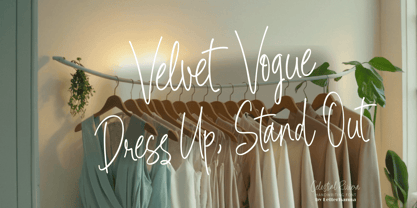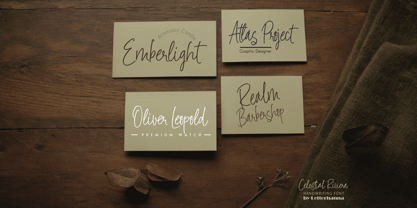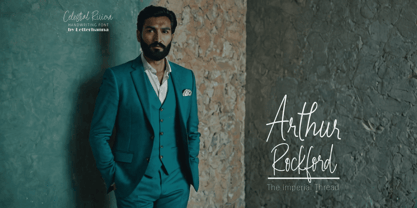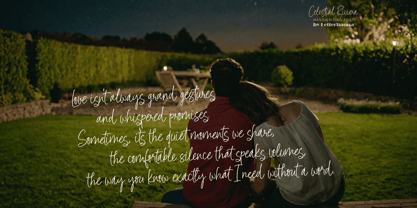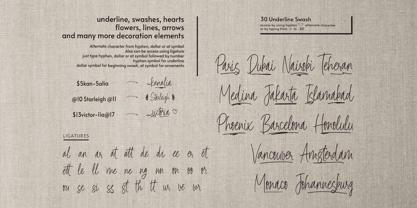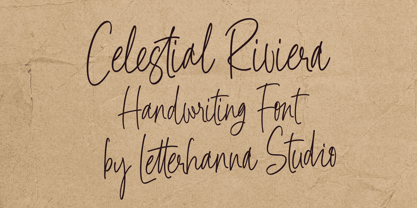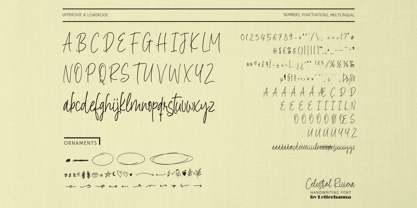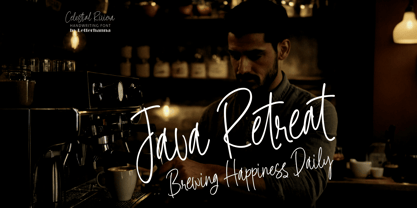
Celestial Riviera
by Letterhanna Studio
The Celestial Riviera Font Family was designed by Rinaldo Hasibuan and published by Letterhanna Studio. Celestial Riviera contains 1 styles. More about this family
Introducing Celestial Riviera, an artistic handwritten script font designed for those who dare to stand out. With its striking strokes and expressive curves, this font exudes confidence and creativity, making it perfect for statement branding, edgy designs, and high-impact visuals. Every letter flows with intentional energy, blending raw artistic flair with refined elegance.
Ideal for logos, posters, fashion editorials, and packaging, Celestial Riviera commands attention while maintaining an air of sophistication. Its strong yet fluid style makes it a go-to choice for designers seeking a font that speaks power, passion, and artistry. Elevate your projects with a typeface that transforms words into works of art.
Designers: Rinaldo Hasibuan
Foundry: Letterhanna Studio